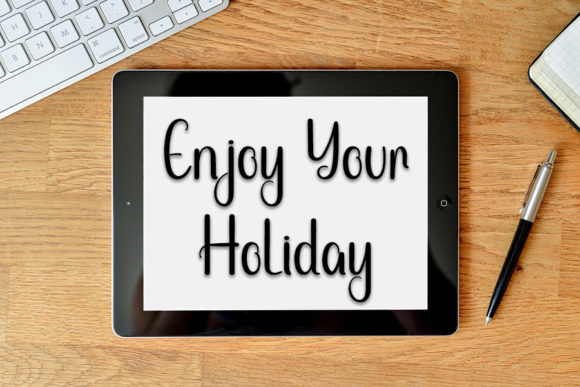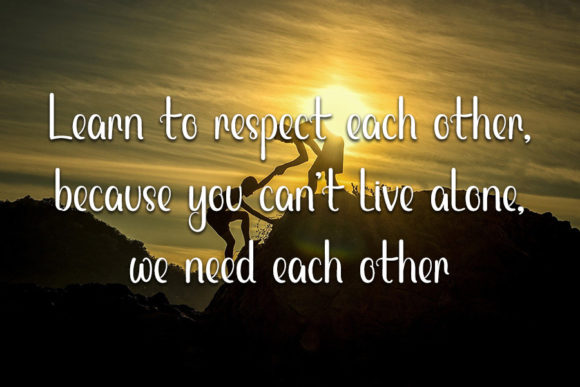
Samantha Handmade Font
db-ku.com - Script & Handwritten -- Samantha Handmade is a stylish handwritten font with a contemporary atmosphere and impeccable form, inspired by a timeless classic calligraphy. Not too thin and not too thick, balanced and varied, this font was designed to enhance the beauty of your projects.